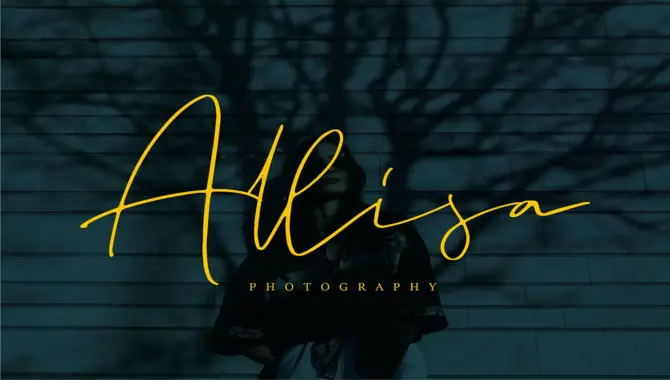
Are you looking to add a touch of elegance and personalization to your graphic designs, branding, or logo? Look no further than signature fonts!
A signature font is a type of font that imitates the look of someone’s handwriting or a personal signature. It is commonly used in branding, logos, and personal stationery to create a distinctive and personalized touch. These fonts have graceful and fluid letter shapes that mimic the strokes and style of handwritten signatures.
You can find and download signature fonts from various online platforms and font libraries. These unique and stylish fonts resemble the fluid strokes of a handwritten signature, adding a sense of authenticity and sophistication to your projects. Here we will discuss on top font that looks like signature.
Top 5 Font That Looks Like Signature For Graphic Design, Branding & Logo Design
Adding a signature font to your designs can add elegance and authenticity. These fonts mimic personal handwritten signatures, giving your branding and stationery a unique and stylish vibe. Signature or script fonts are perfect for social media posts, packaging, business cards, and more.
With their swashes, ligatures, and beautiful calligraphy, these fonts create an eye-catching appearance. Whether wedding invitations, product packaging, or digital designs, using the best signature font adds elegance to your project. Here we give you the top 5 font that looks like signature.
1. Routerand – Signature Font
The router is an elegant script font that adds a personal touch to any design project. With smooth lines and authentic handwriting characteristics, it brings sophistication to branding materials, logos, and digital signatures.
Whether you’re designing product packaging, social media posts, or business cards, Routerand is a versatile choice. Its calligraphy-inspired vibe and multiple opentype features make it eye-catching. Download Router now for an elegant touch to your designs.
2. Angello – Signature Font
Angello is a stylish signature font that captures the elegance of a handwritten signature. With unique ligatures and swashes, it adds sophistication to your designs. Suitable for print and digital media, Angello is perfect for logos, branding materials, invitations, and social media posts.
Its versatility makes it great for packaging, lettering, business cards, and more. The smooth lines and authentic handwriting create an eye-catching vibe. Use Angello to create unique designs that stand out. Whether it’s a professional project or a personal blog, Angello impresses with its elegant style.
3. Sigustil – Signature Font
Sigustil is the perfect signature font for designers seeking a natural handwriting look. Its smooth lines add elegance to any project, from logos to graphics. Use it in digital or print designs, like social media posts, packaging, or business cards. With beautiful glyphs, swashes, and ligatures, Sigustil creates eye-catching designs. Download now and elevate your projects with timeless charm.
4. Maissiel | Signature Font
Maissiel is an elegant signature font that captures the natural handwriting of a personalized signature. With smooth and flowing lines, this font adds authenticity and elegance to your design projects.
Whether you’re creating logos, branding materials, wedding invitations, or social media posts, Maissiel is a versatile choice. It works well in casual and high-end design styles, offering options for typographic needs. Combining the beauty of handwritten script with sophistication, Maissiel adds a personal touch to your designs.
5. Biograph Signature Font
Biograph Signature Font is an elegant and stylish font that resembles a handwritten signature. It adds a personal touch, authenticity, and elegance to your graphic design projects, branding materials, logos, ads, and typography.
Whether you’re creating social media posts, packaging designs, business cards, or wedding invitations, this font is a great choice. Its serif font style exudes sophistication, while the swashes add luxury. Download Biograph Signature Font to elevate your designs with their natural handwriting and eye-catching vibe.
Selecting the proper signature font is paramount for graphic design, branding, and logo design. It infuses a personal touch and individuality into your plans, making them distinctive. The top 5 signature fonts mentioned in this blog – Routerand, Angello, Sigustil, Maissiel, and Biograph – come highly recommended for their elegance, style, and versatility.
Whether crafting a logo or designing promotional materials, these fonts will help you achieve a professional and visually captivating aesthetic. Begin exploring these signature fonts today to elevate your designs to new heights. We hope the above outline on the top 5 font that looks like signature will help you to choose the right font.
1.What Font Looks Like Handwriting For Signature?
Ans: Popular signature-like fonts include “Signatura,” “Samantha,” and “Alex Brush.” Experiment with different options to find a font that resembles your signature style.
5.How Can I Choose A Signature Font?
Ans: Consider the style and tone you want to convey when choosing a signature font. Opt for fonts with a handwritten or script-like appearance. Try out different options to see how they enhance your name. However, prioritize legibility as some fancy or intricate fonts may not appear in a signature.